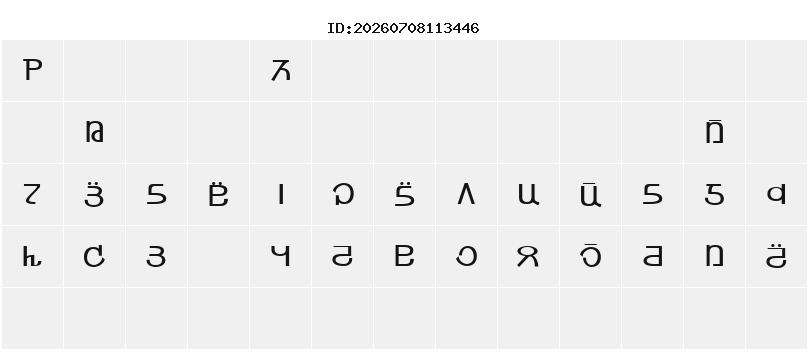
• Font Name: Dadh Ath
• Full Font Name: Dadh Ath
• Manufacturer: Joseph Spicer
About Dadh Ath.ttf
Dadh Ath.ttf is a modern, elegant sans-serif font designed for ultimate readability and visual harmony. Perfect for branding, headlines, web design, and print materials.